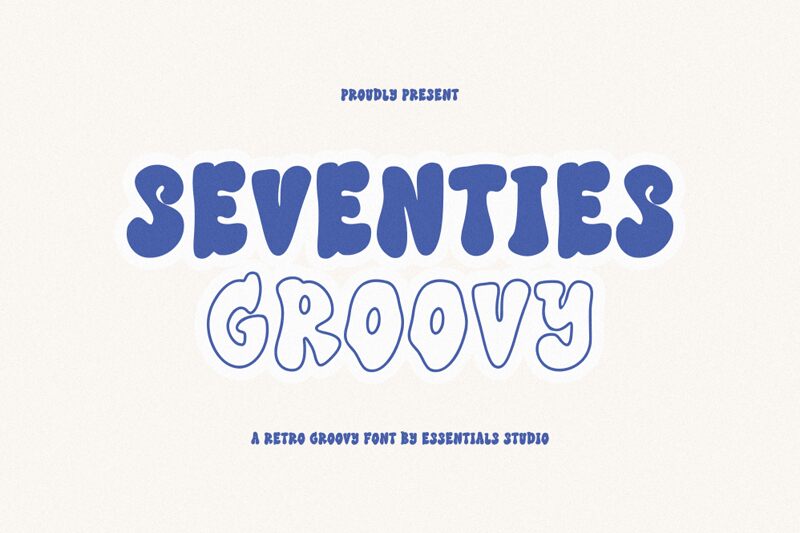
SEVENTIES GROOVY
Seventies groovy font by Essentials Studio is a display type capturing the 1970s aesthetic. Its wavy, condensed letters evoke a nostalgic, whimsical flair making the font unique and expressive. With its bold look, this free-style typeface makes an immediate impact when used in any project no matter its scale.
Seventies groovy is very versatile; suitable for logotypes, advertisements, apparel designs, magazines titles and covers as well as headlines that need an eye-catchy look. It can also be adopted for posters, flyers, online branding through websites or social media pages and posts among other mediums. This a classic addition to your fonts library!